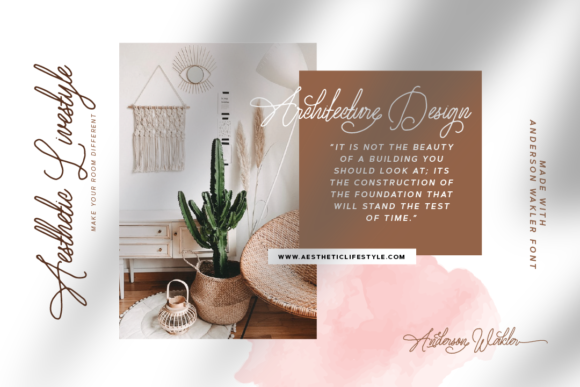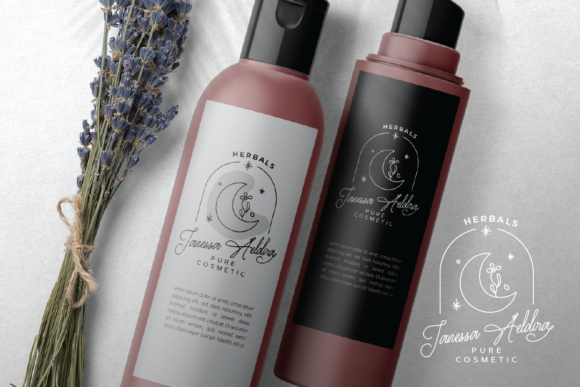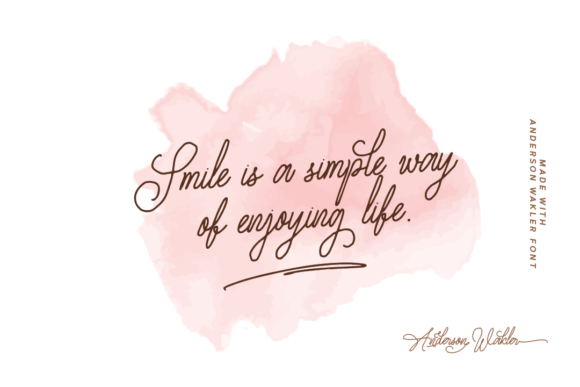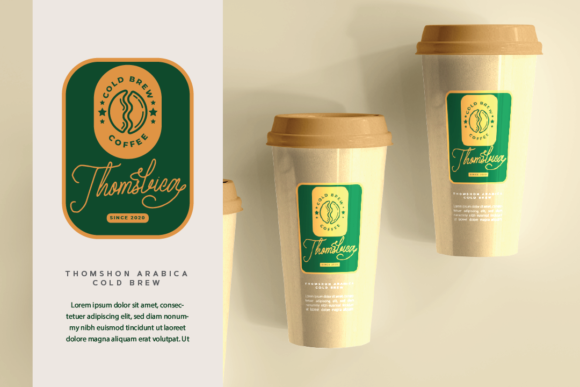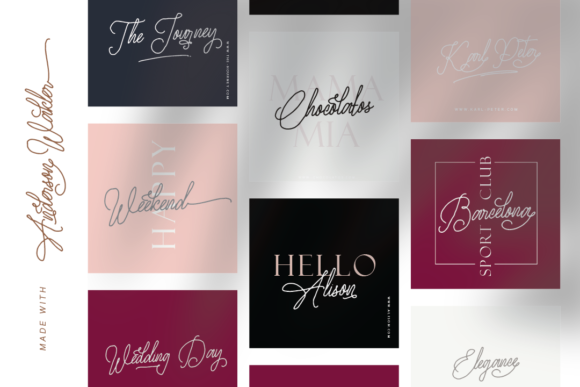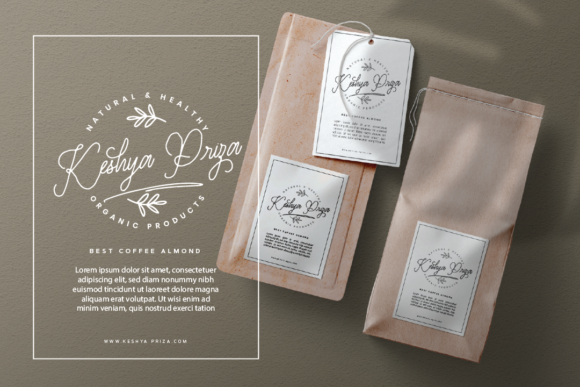
Discover the Elegance of Anderson Wakler Font: A Vintage Styled Script Font
Are you a designer or crafter looking for a unique and stylish font to elevate your creative projects? Look no further than the Anderson Wakler Font, a vintage-styled, well-balanced, and thin-lettered script font that’s sure to impress. In this article, we’ll dive into the features and benefits of this amazing font, and explore how you can use it to take your designs to the next level.
What is Anderson Wakler Font?
Anderson Wakler Font is a beautifully crafted script font that exudes elegance and sophistication. With its thin letters and balanced design, this font is perfect for creating stunning text-based designs, from logos and branding materials to invitations and digital art. The font’s vintage style gives it a timeless feel that’s sure to appeal to designers and crafters who appreciate classic typography.
Key Features of Anderson Wakler Font
- Vintage Styled: Anderson Wakler Font boasts a unique, vintage-inspired design that’s perfect for creating classic and sophisticated text-based designs.
- Well-Balanced: The font’s balanced design ensures that your text looks harmonious and visually appealing, making it perfect for use in a variety of design projects.
- Thin Lettered: The font’s thin letters give it a delicate, elegant feel that’s sure to add a touch of sophistication to your designs.
- PUA Encoded: Anderson Wakler Font is PUA (Private Use Area) encoded, which means you can access all of the amazing glyphs and ligatures with ease.
Benefits of Using Anderson Wakler Font
So why choose Anderson Wakler Font for your design projects? Here are just a few benefits of using this amazing font:
- Ease of Use: With its PUA encoding, you can easily access all of the font’s glyphs and ligatures, making it simple to create stunning text-based designs.
- Versatility: Anderson Wakler Font is perfect for use in a variety of design projects, from logos and branding materials to invitations and digital art.
- Unique Style: The font’s vintage style gives it a unique and distinctive look that’s sure to set your designs apart from the crowd.
How to Use Anderson Wakler Font in Your Designs
Ready to start using Anderson Wakler Font in your designs? Here are a few tips to get you started:
- Pair it with Other Fonts: Anderson Wakler Font pairs beautifully with other fonts, so don’t be afraid to experiment with different combinations to find the perfect look for your design.
- Experiment with Colors: The font’s thin letters and balanced design make it perfect for use with a variety of colors and textures.
- Pay Attention to Ligatures: With its PUA encoding, you can easily access the font’s ligatures and glyphs to add an extra touch of elegance to your designs.
In conclusion, Anderson Wakler Font is a stunning script font that’s perfect for designers and crafters looking to add a touch of elegance and sophistication to their creative projects. With its vintage style, balanced design, and PUA encoding, this font is sure to become a favorite in your design arsenal. So why wait? Download Anderson Wakler Font today and start creating stunning text-based designs that are sure to impress.